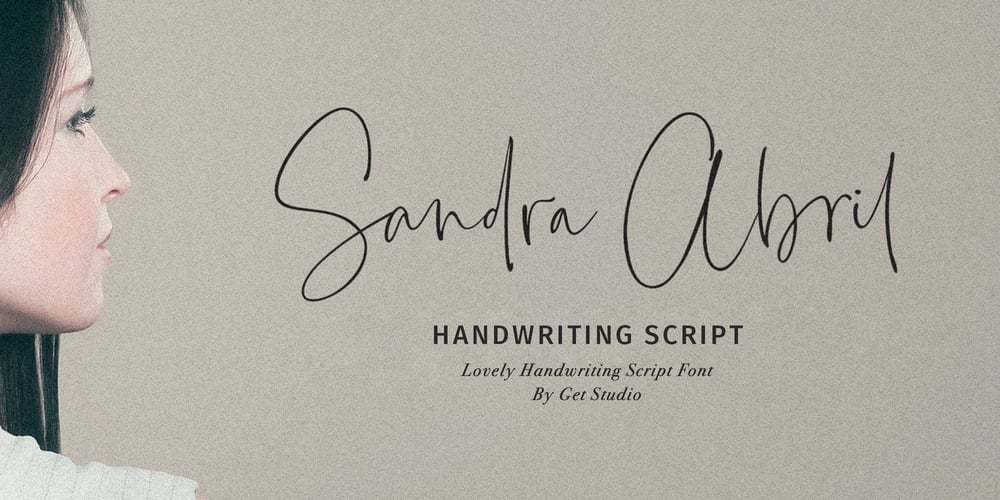
Sandra Abril Script Font Family was designed by Hermansyah and published by Get Studio. Sandra Abril Script contains 1 styles and family package options. Everleigh Signature Script is a handwritten font with a signature style and bouncing character. It comes with alternate characters (OpenType feature).Everleigh can be used for various types of design needs such as branding materials, t-shirts, social media templates, business cards, logos, promotional flyers, posters, and more.Everleigh includes a full set of gorgeous uppercase and lowercase letters, numerals, a large range of punctuation, and 126 ligatures to give a realistic hand-lettered style.